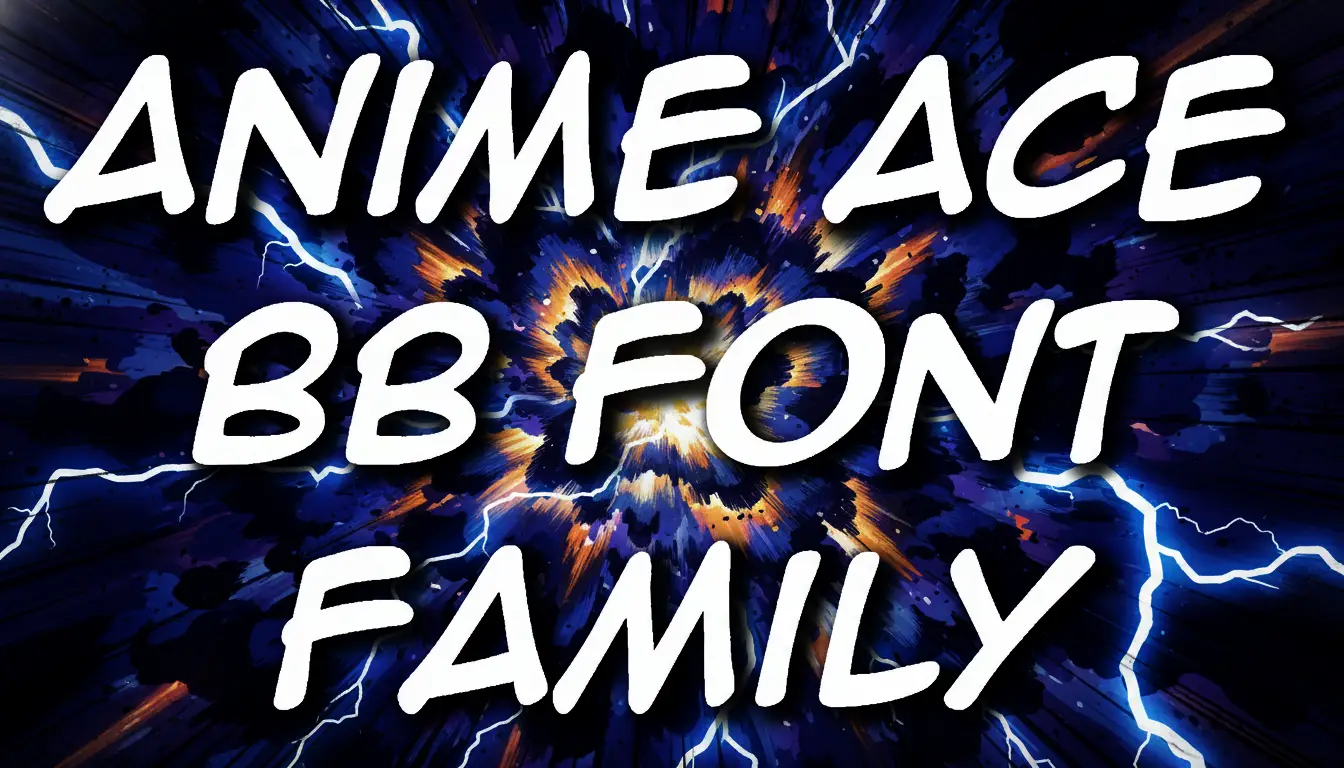
Anime Ace BB Font
Anime Ace BB
Anime Ace BB is a fancy font designed by Nate Piekos and published by Nate Piekos. Blambot.com. It's a decorative display font with plenty of personality, made to grab attention. You get three styles in one free ZIP, and the preview above lets you test each one before you download.
What You Can Type With Anime Ace BB
You get every letter from A to Z in both cases and all the numbers from 0 to 9, which means Anime Ace BB can handle full sentences, dates and prices. Common punctuation such as &, !, ? and @ is included as well. It also has the accented letters you need for Spanish and Italian.
Where Anime Ace BB Works Best
Think of Anime Ace BB for posters, logos and eye-catching headlines. Use it for one standout word or headline and let simpler fonts handle the rest. Because the family has more than one style, you can mix them in a single design for headings, subheadings and highlights.
Does Anime Ace BB support accented letters?
Yes. Anime Ace BB includes the accented letters needed for Spanish and Italian, so it works for more than just English.